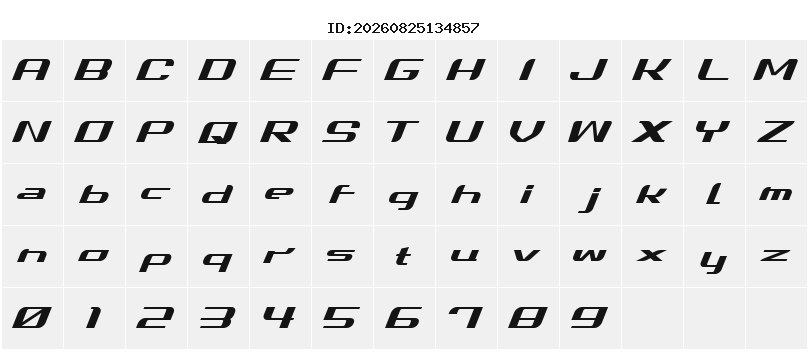
SUMMERCAMP Preview
• Font Name: SUMMERCAMP
• Font Style: I￿alic
• Full Font Name: SUMMERCAMP I￿alic
About SUMMERCAMP.ttf
SUMMERCAMP.ttf is a modern, elegant sans-serif font designed for ultimate readability and visual harmony. Perfect for branding, headlines, web design, and print materials.